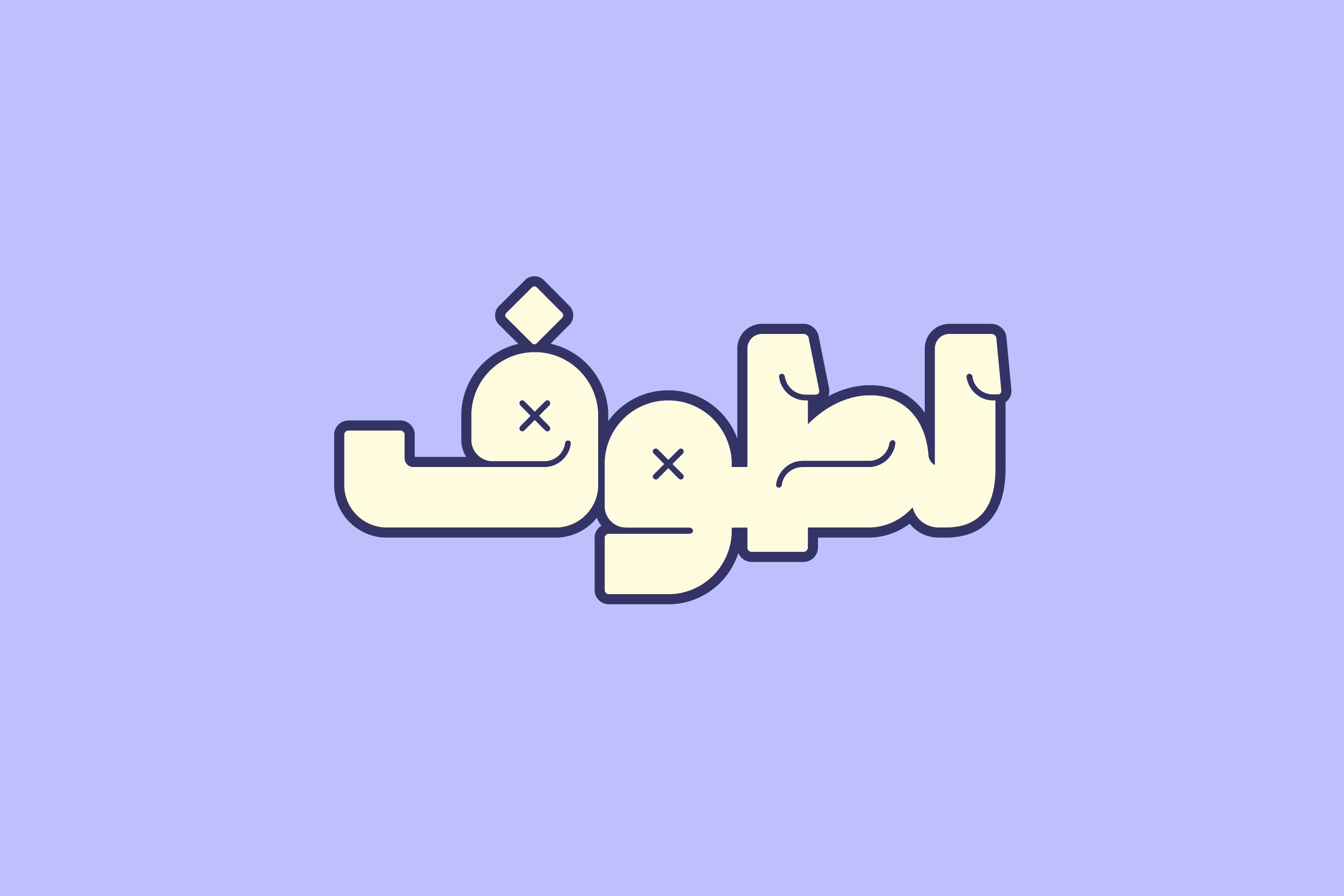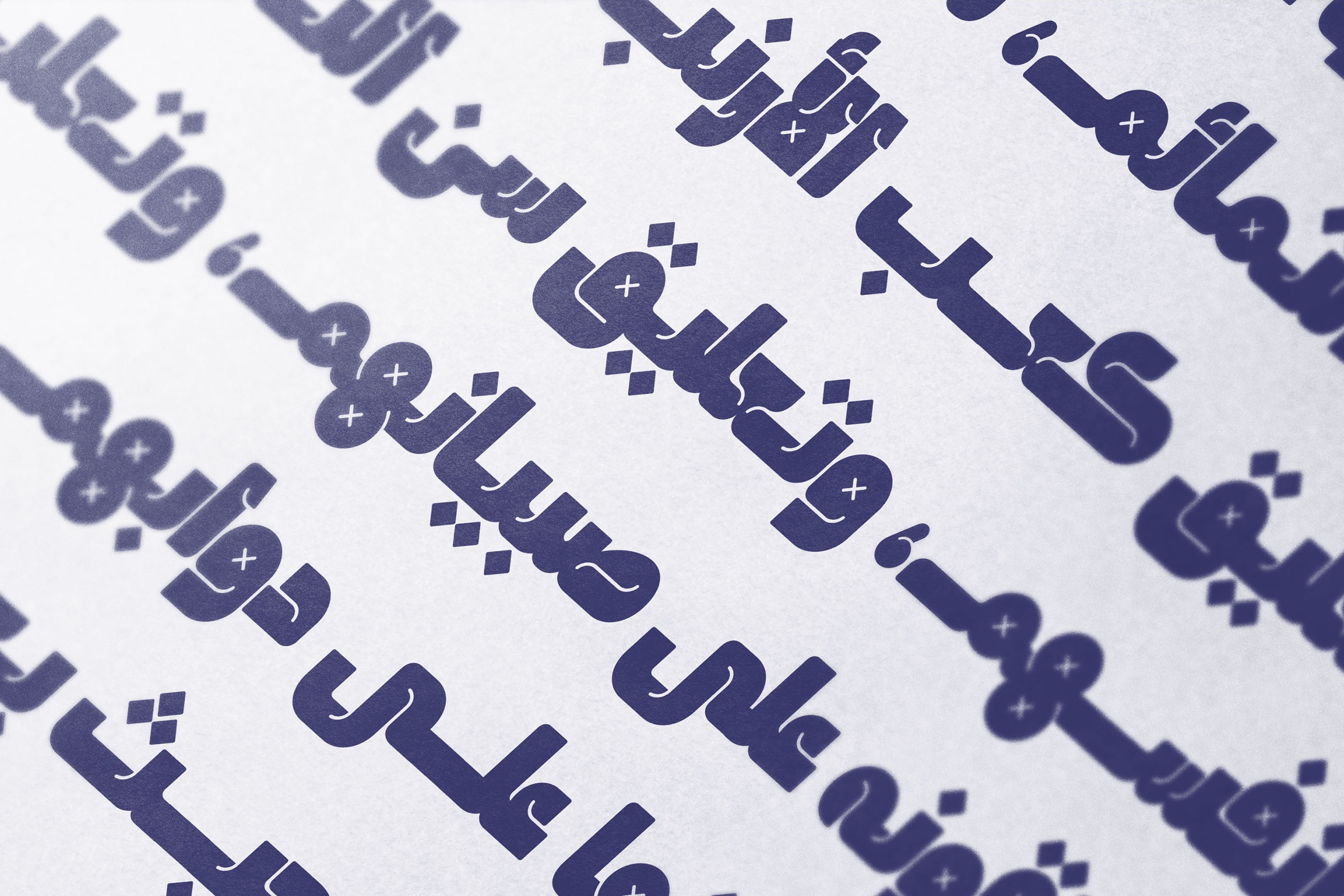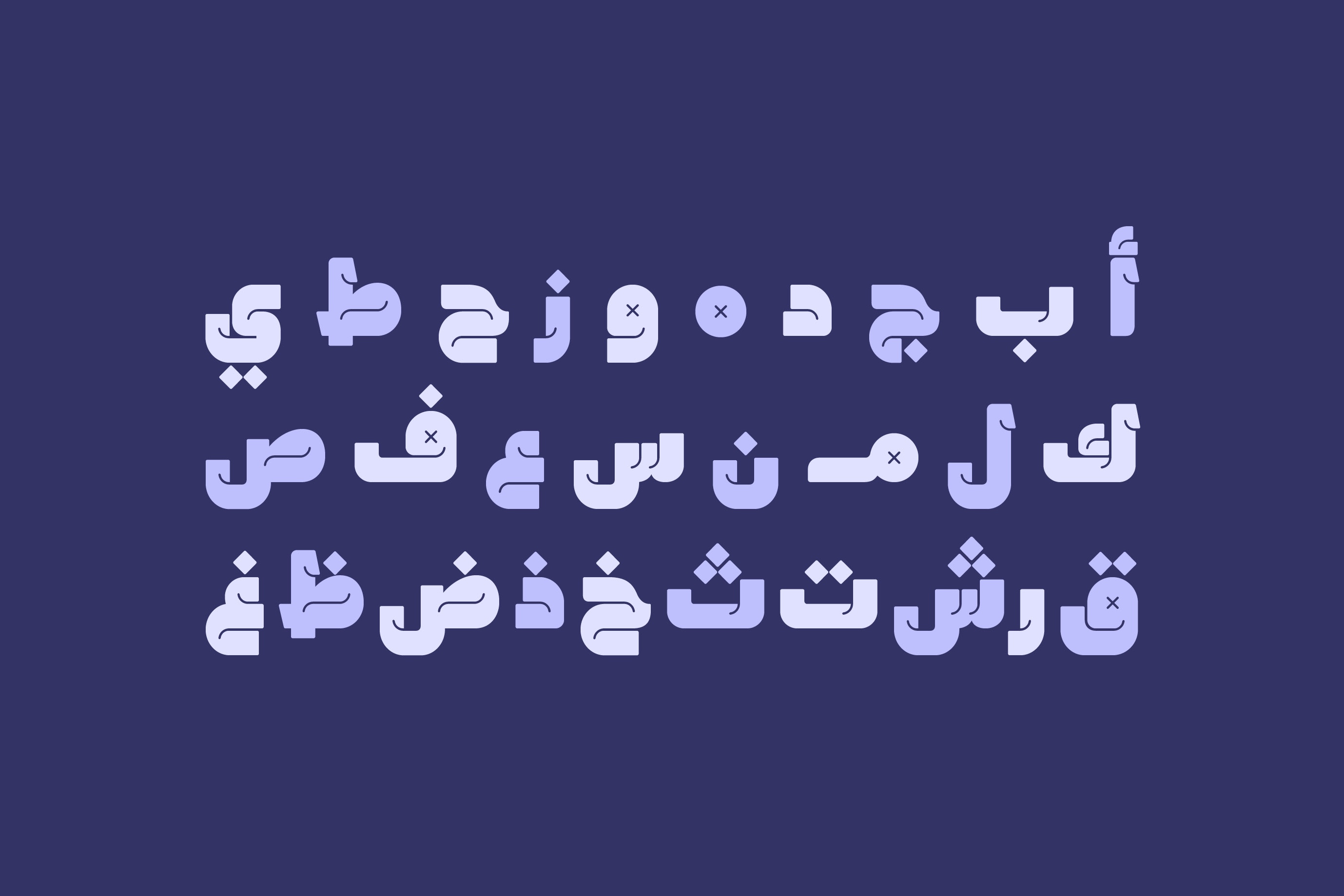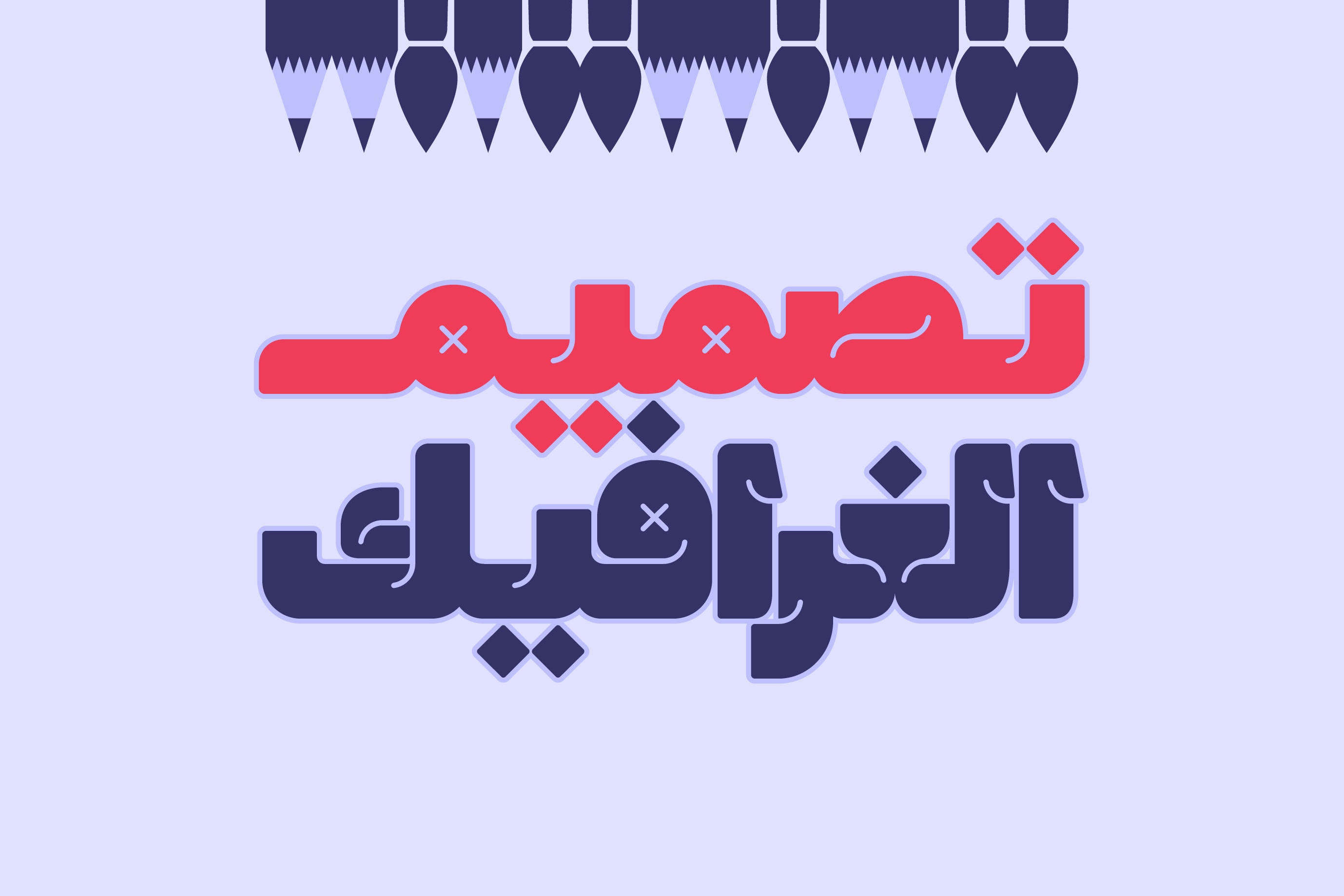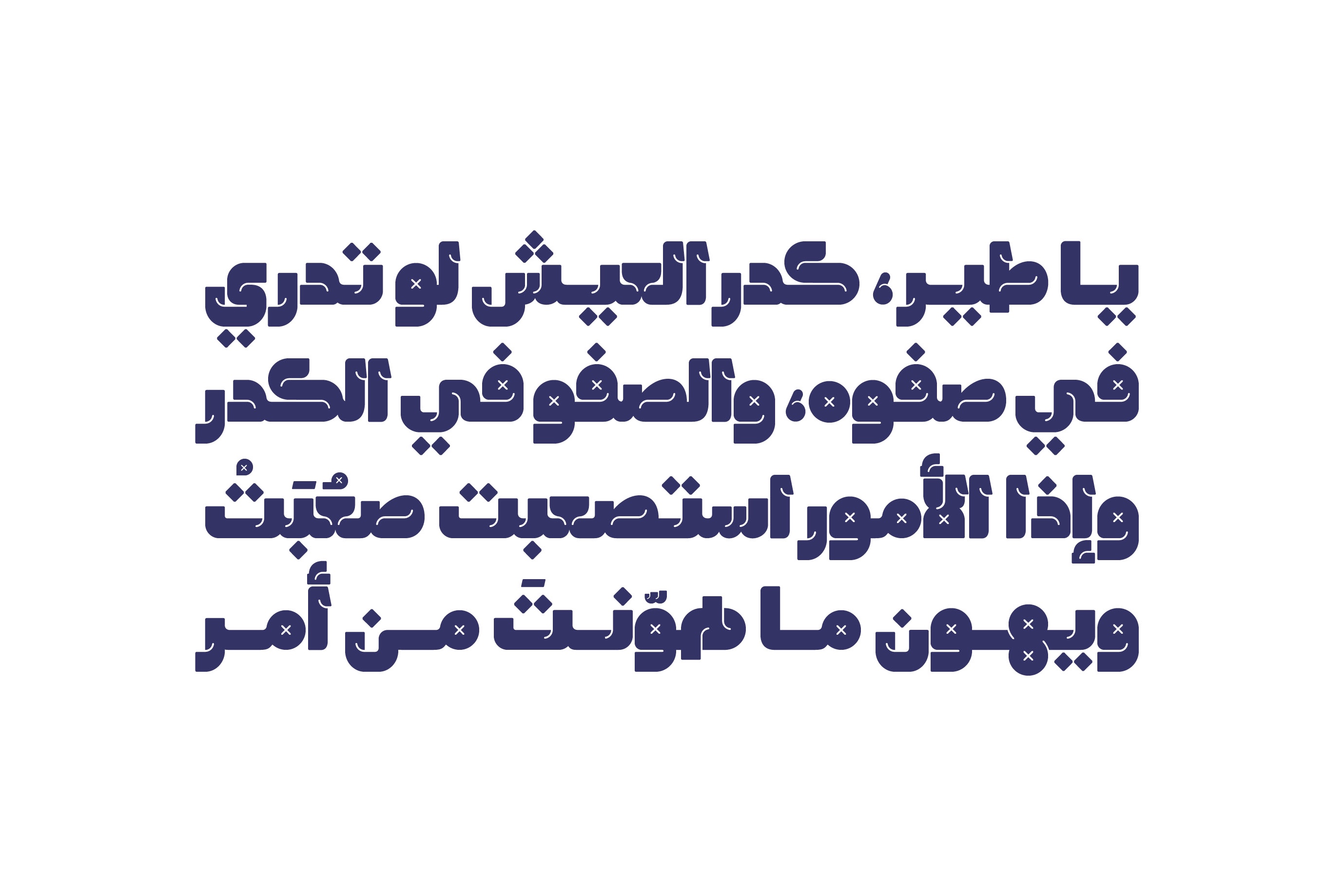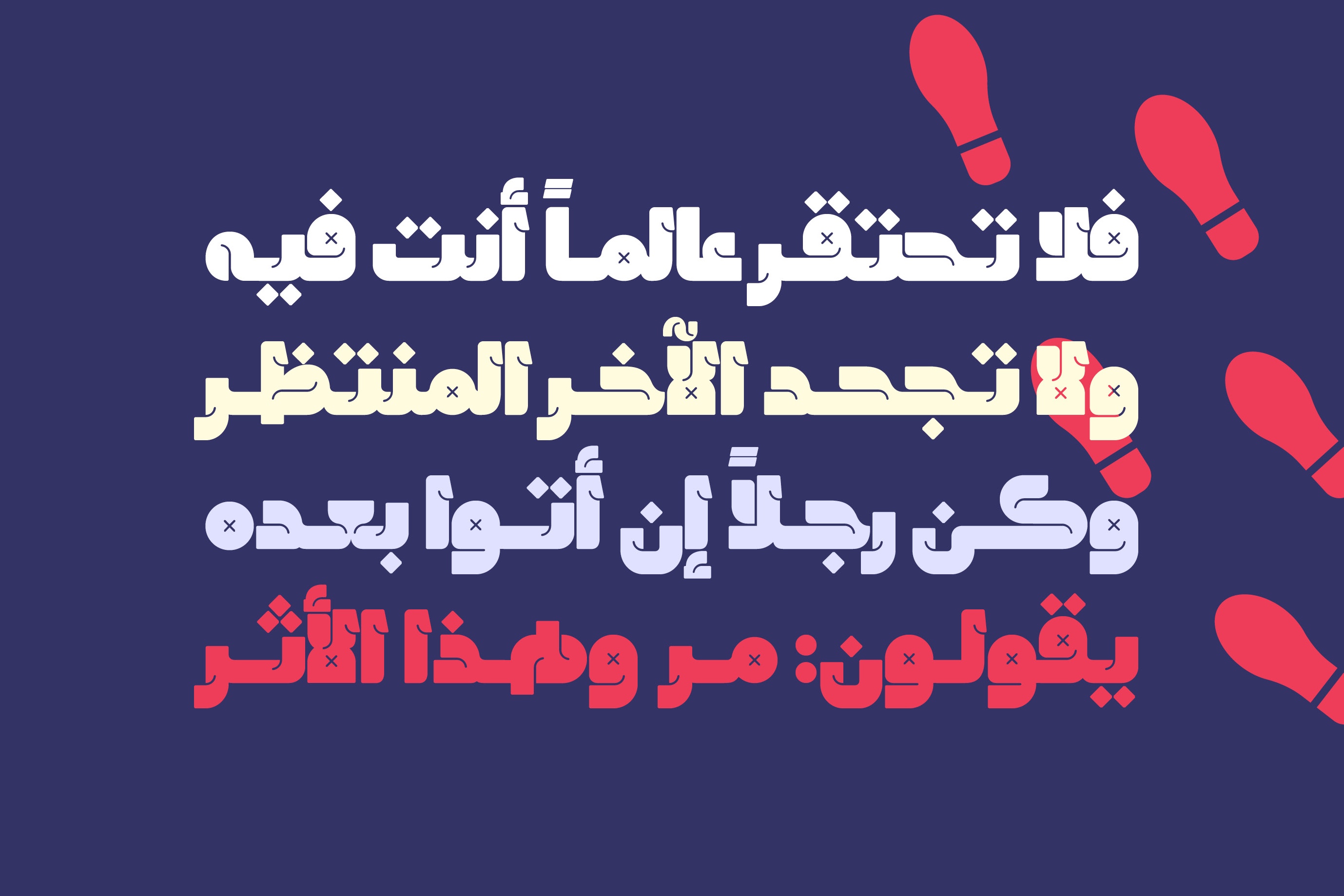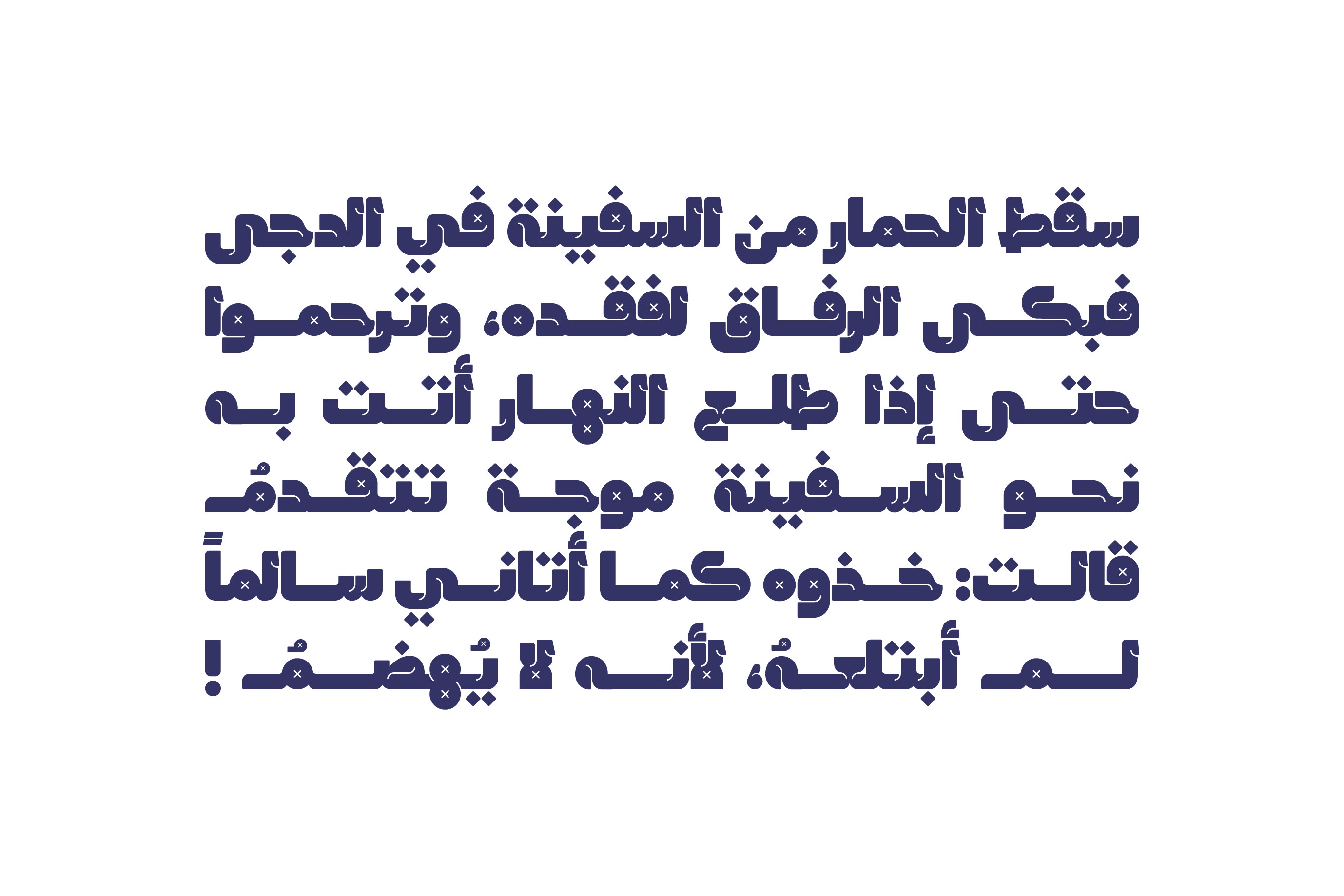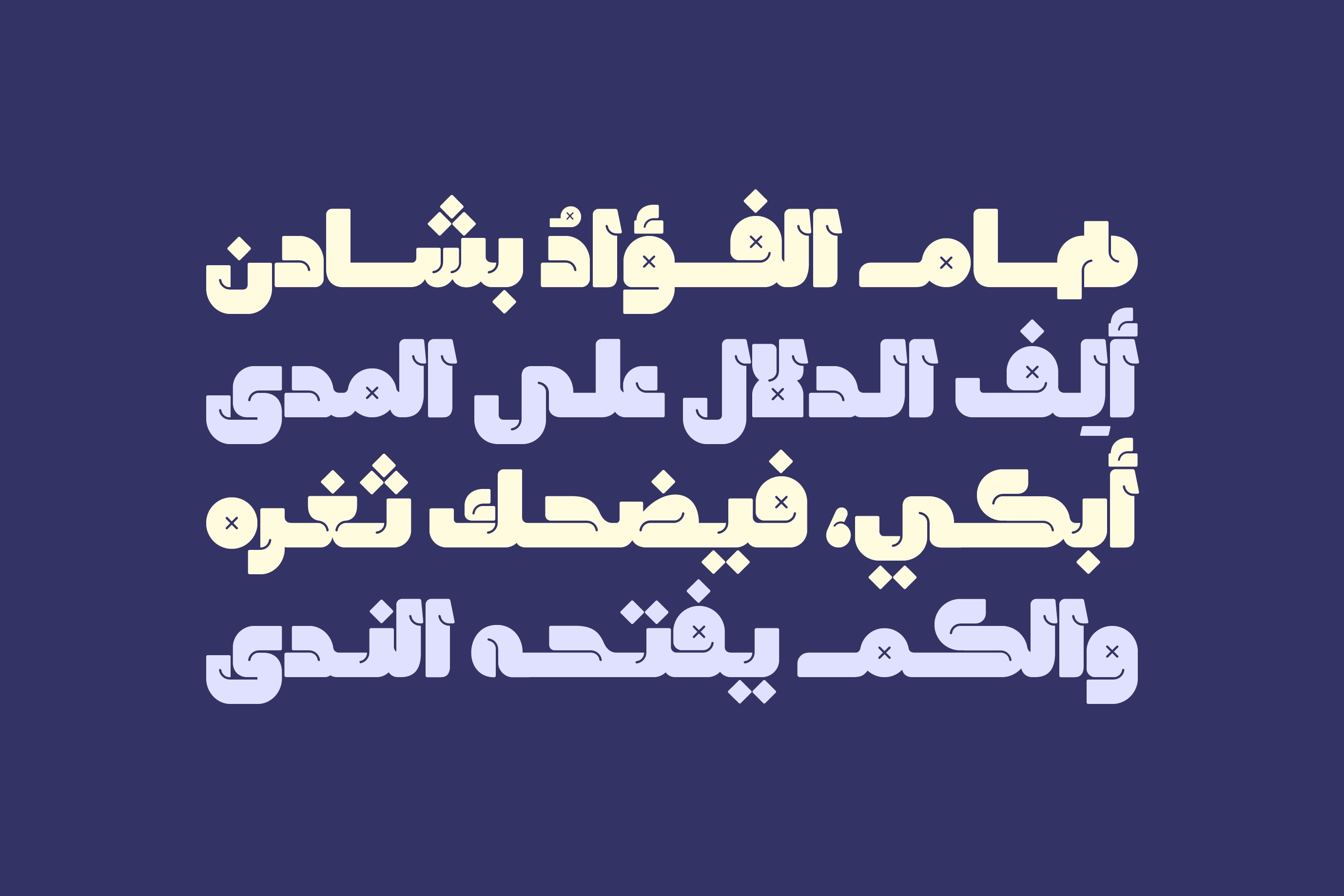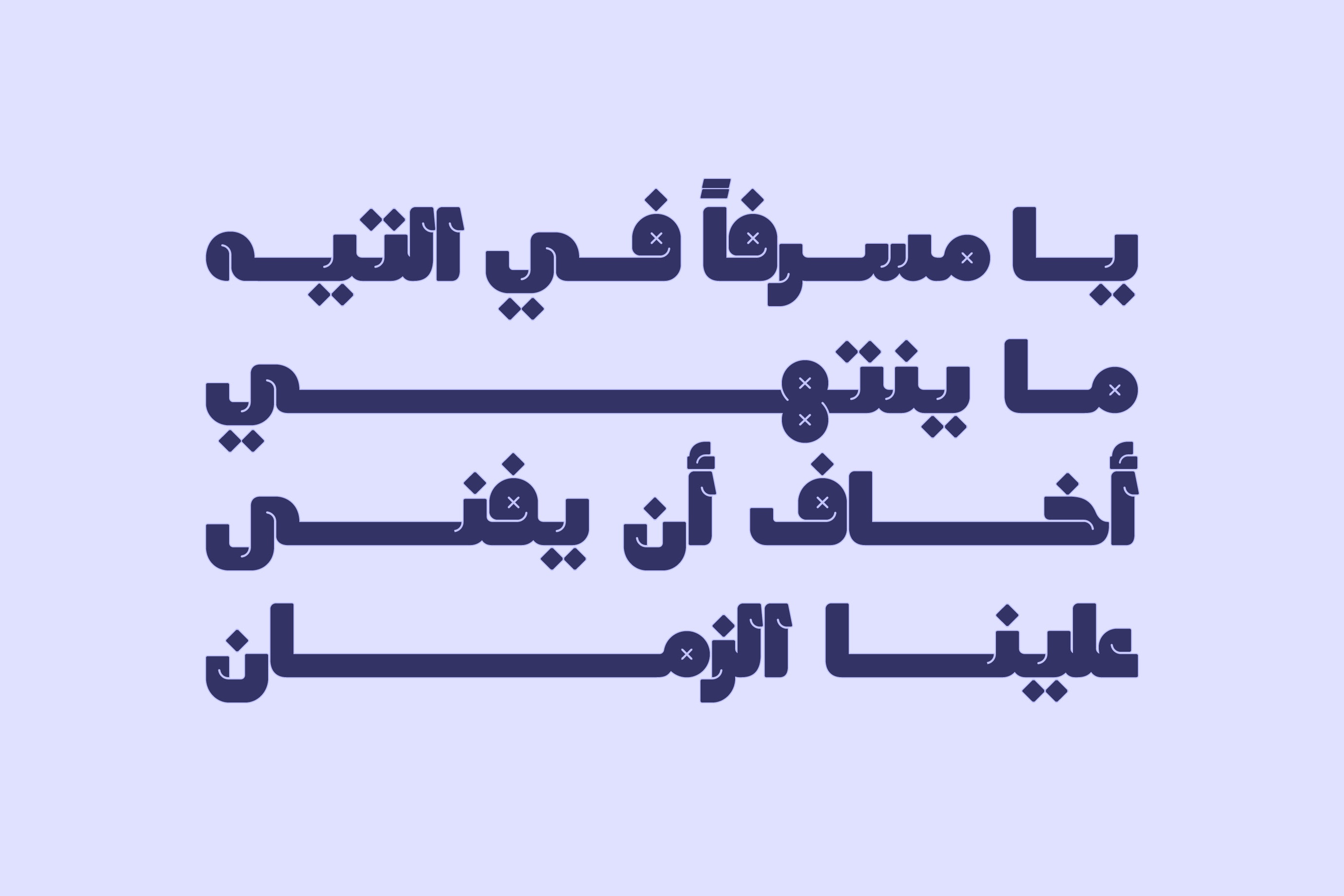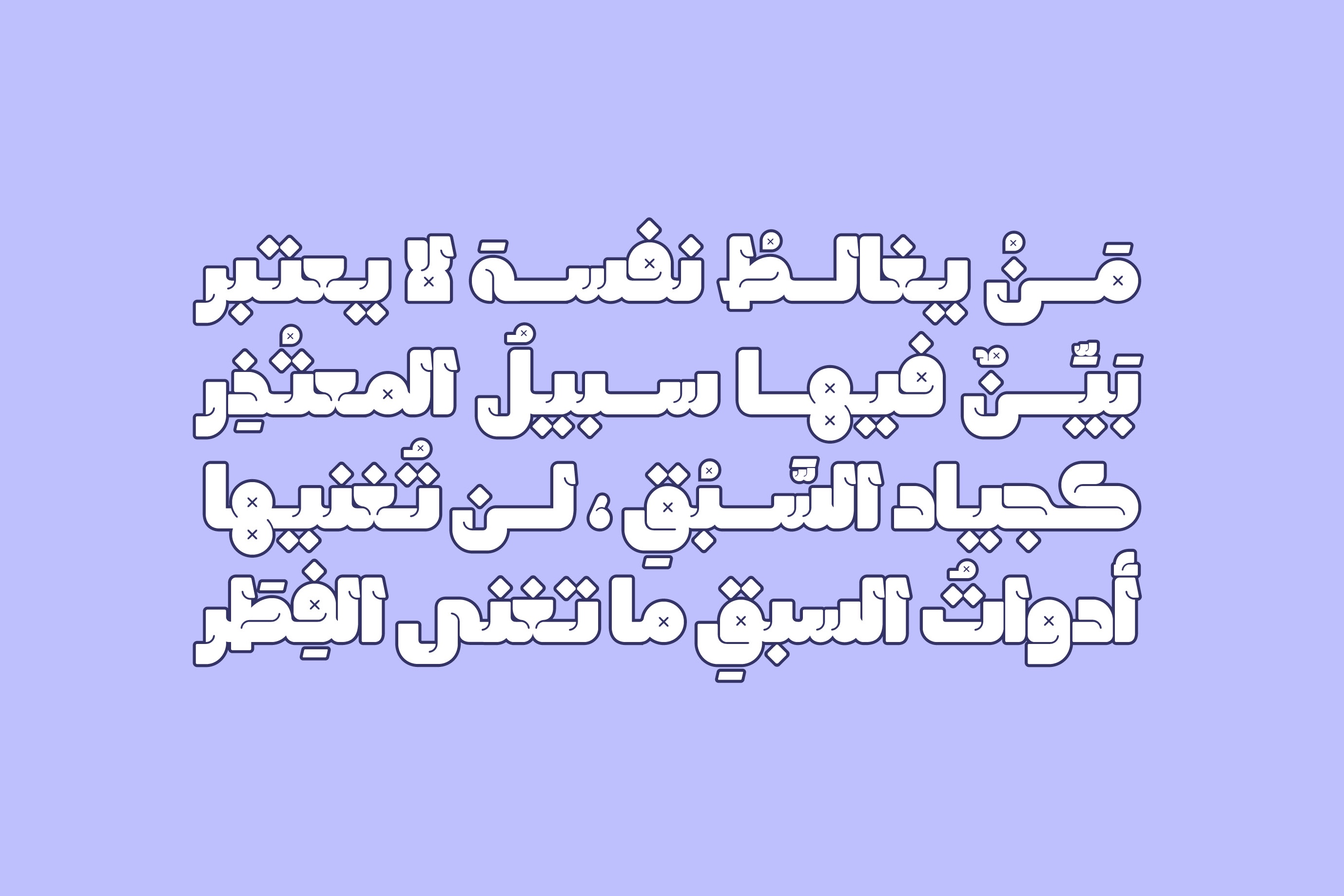
Lattouf is an Arabic display typeface distinguished by its bold structure and playful, humorous letterform style. It is perfect for for modern projects across web, print, and smartphone applications.